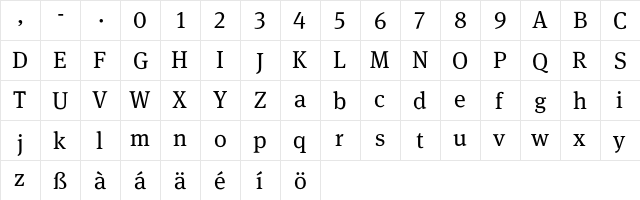
MetaSerifLf-Book Font Preview
MetaSerifLf-Book MetaSerifLf-Book
MetaSerifLf-Book Font Details
| Style | MetaSerifLf-Book |
| Foundry | Erik Spiekermann, Christian Schwartz |
| Designer | Erik Spiekermann, Christian Schwartz |
Design Context for MetaSerifLf-Book Typeface
MetaSerifLf-Book carries the refined structure of traditional serif typography, with bracketed terminals and considered proportions that communicate credibility and craft.
Pro Tip: Set MetaSerifLf-Book with slightly loose tracking in headlines to let each letterform's detail read clearly at display sizes.